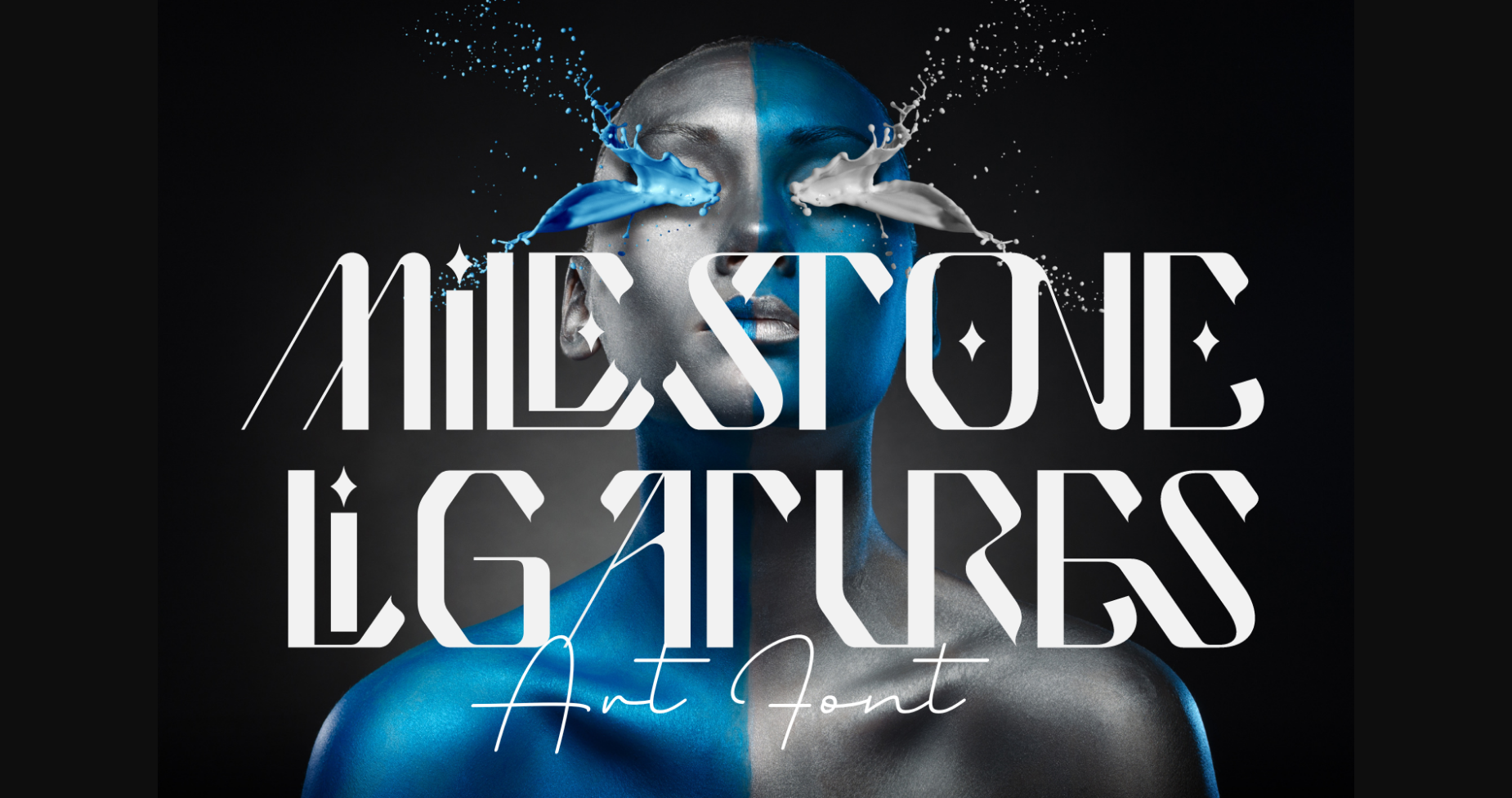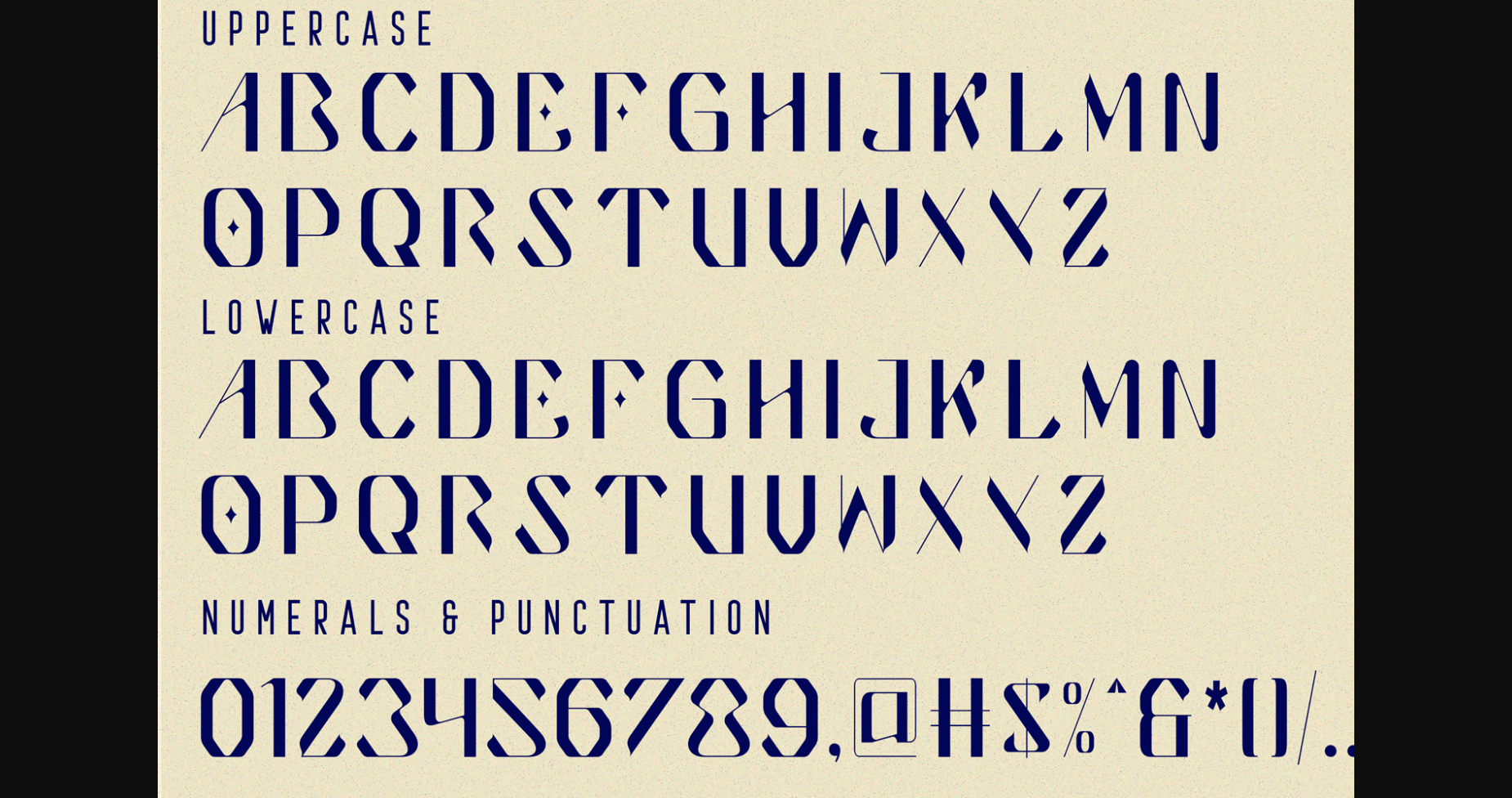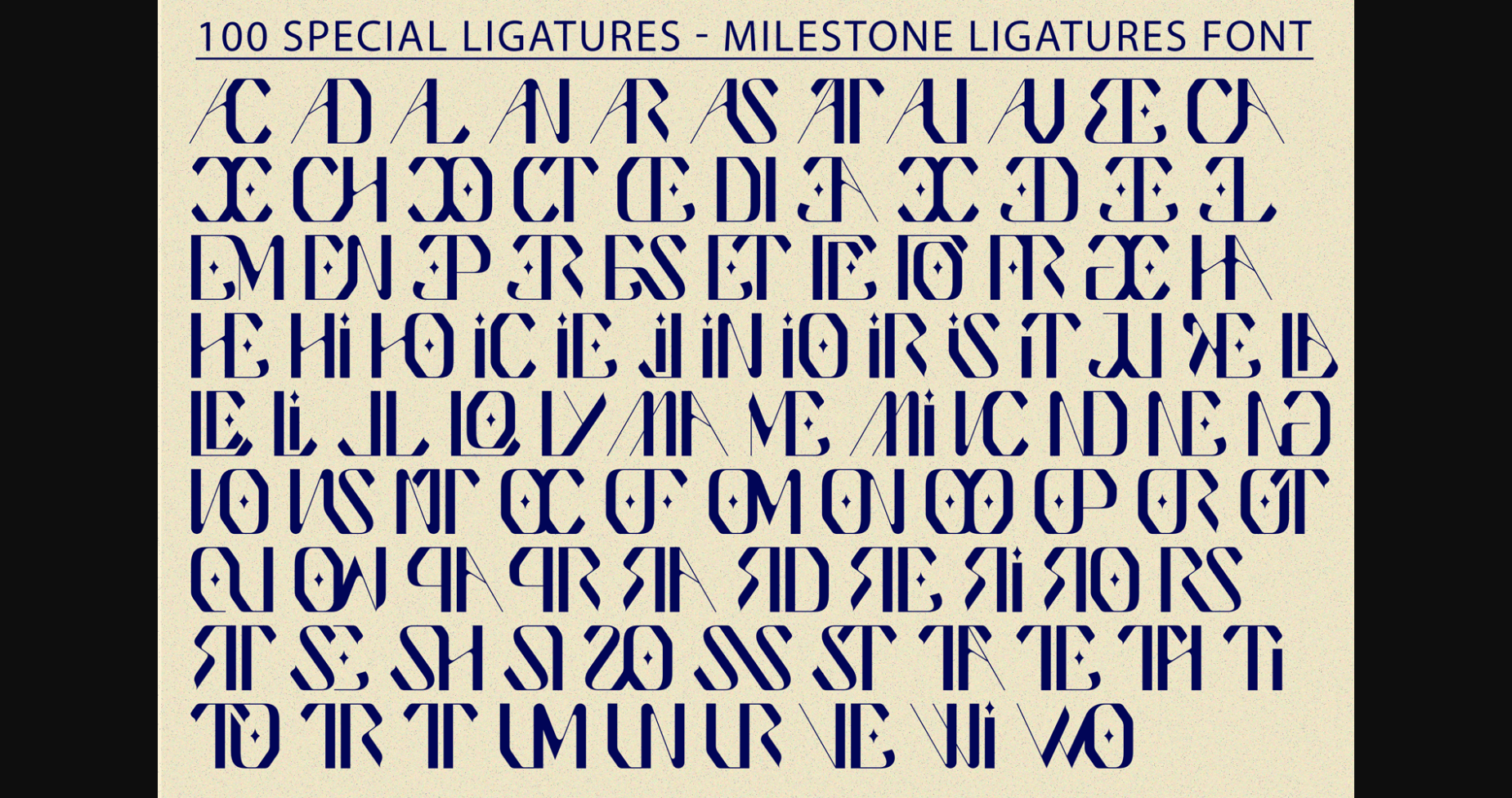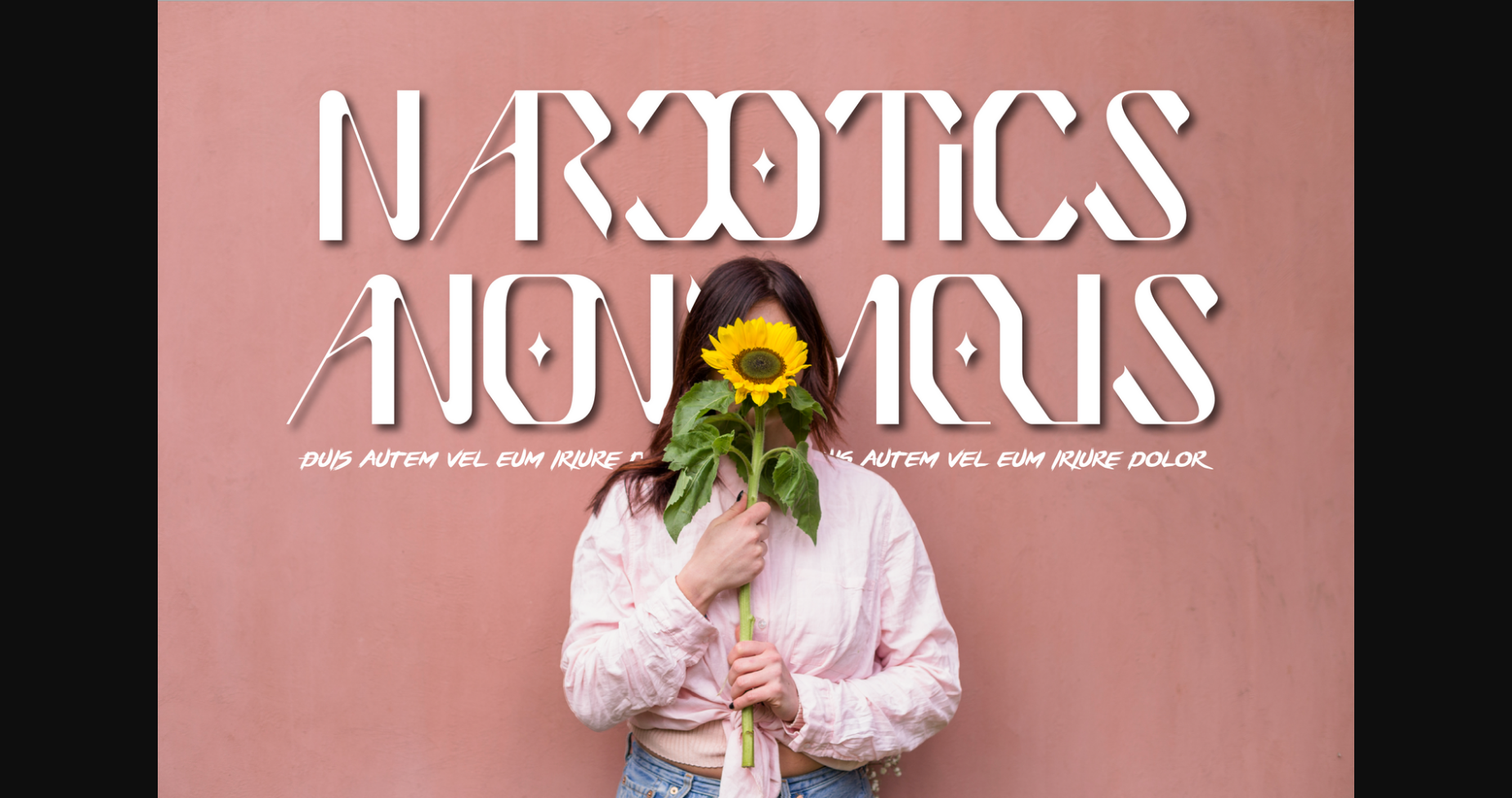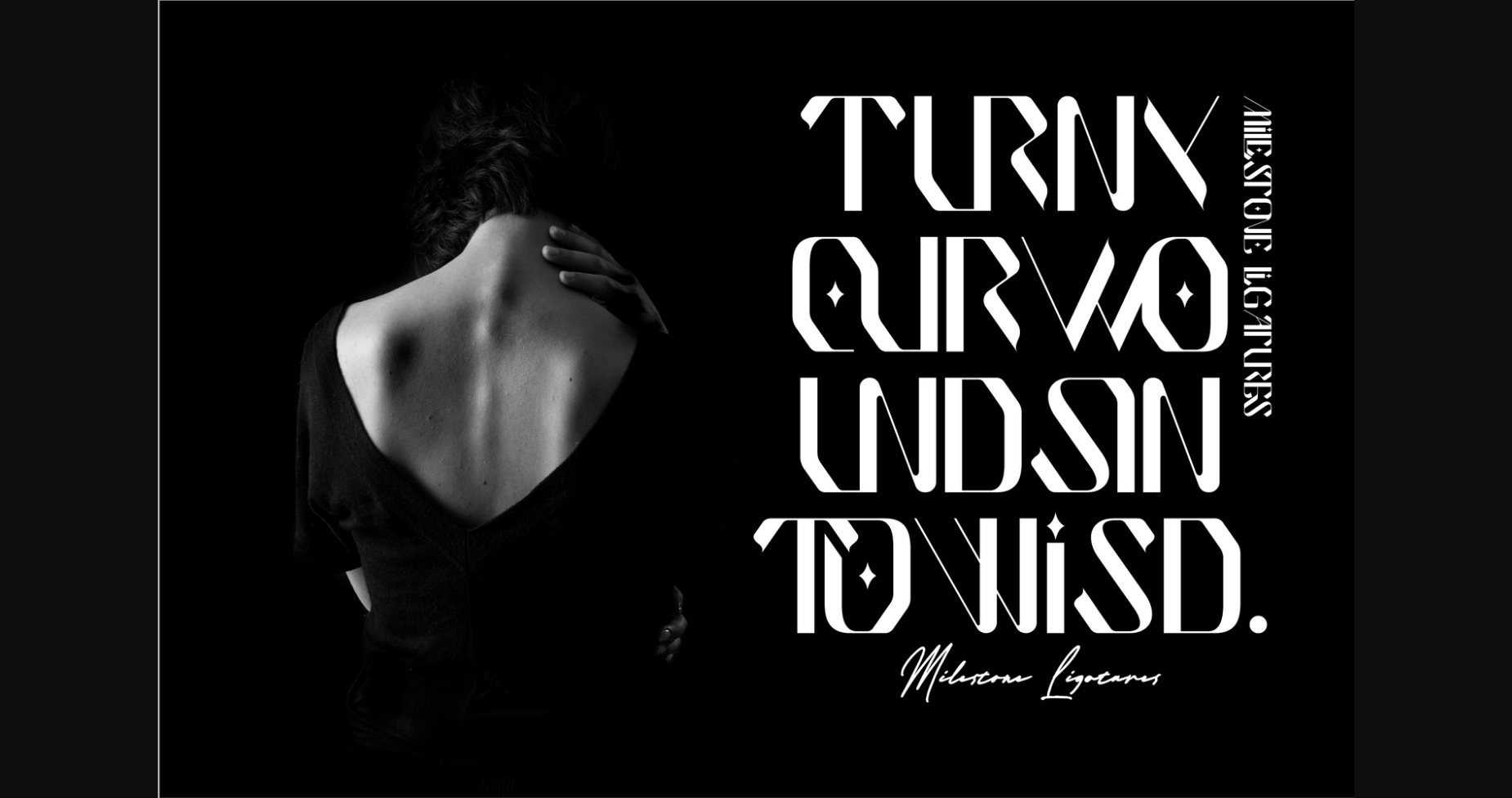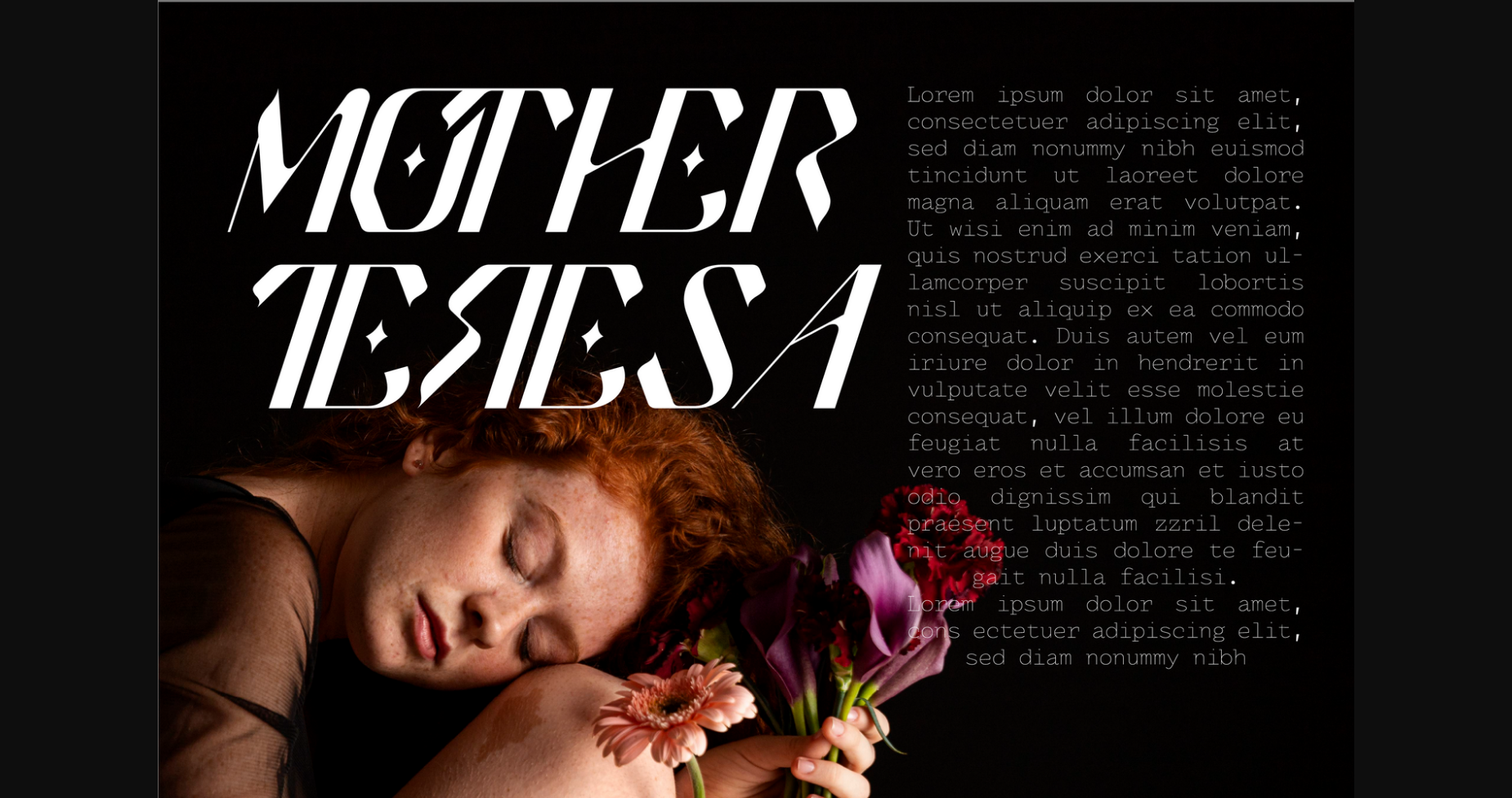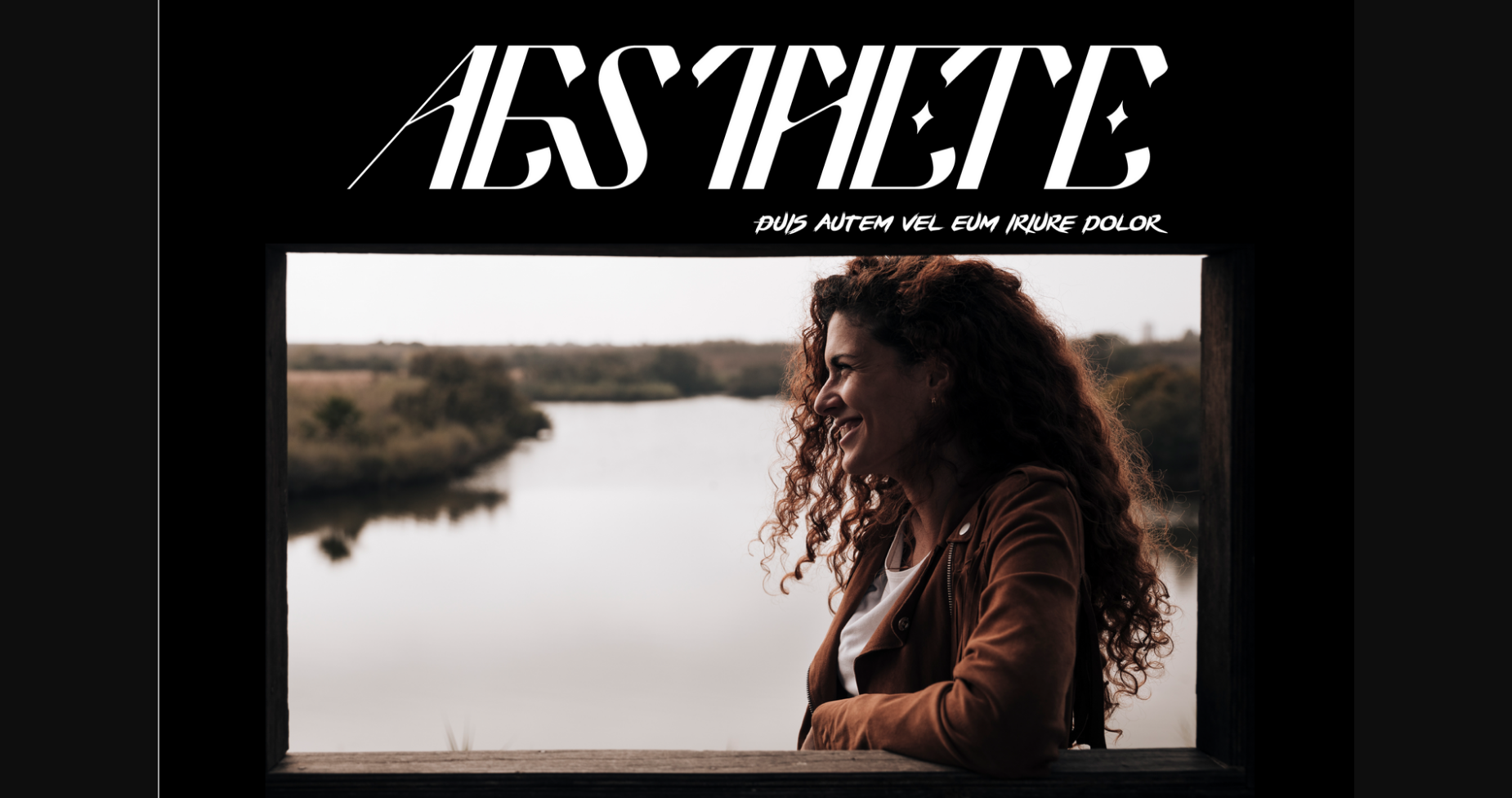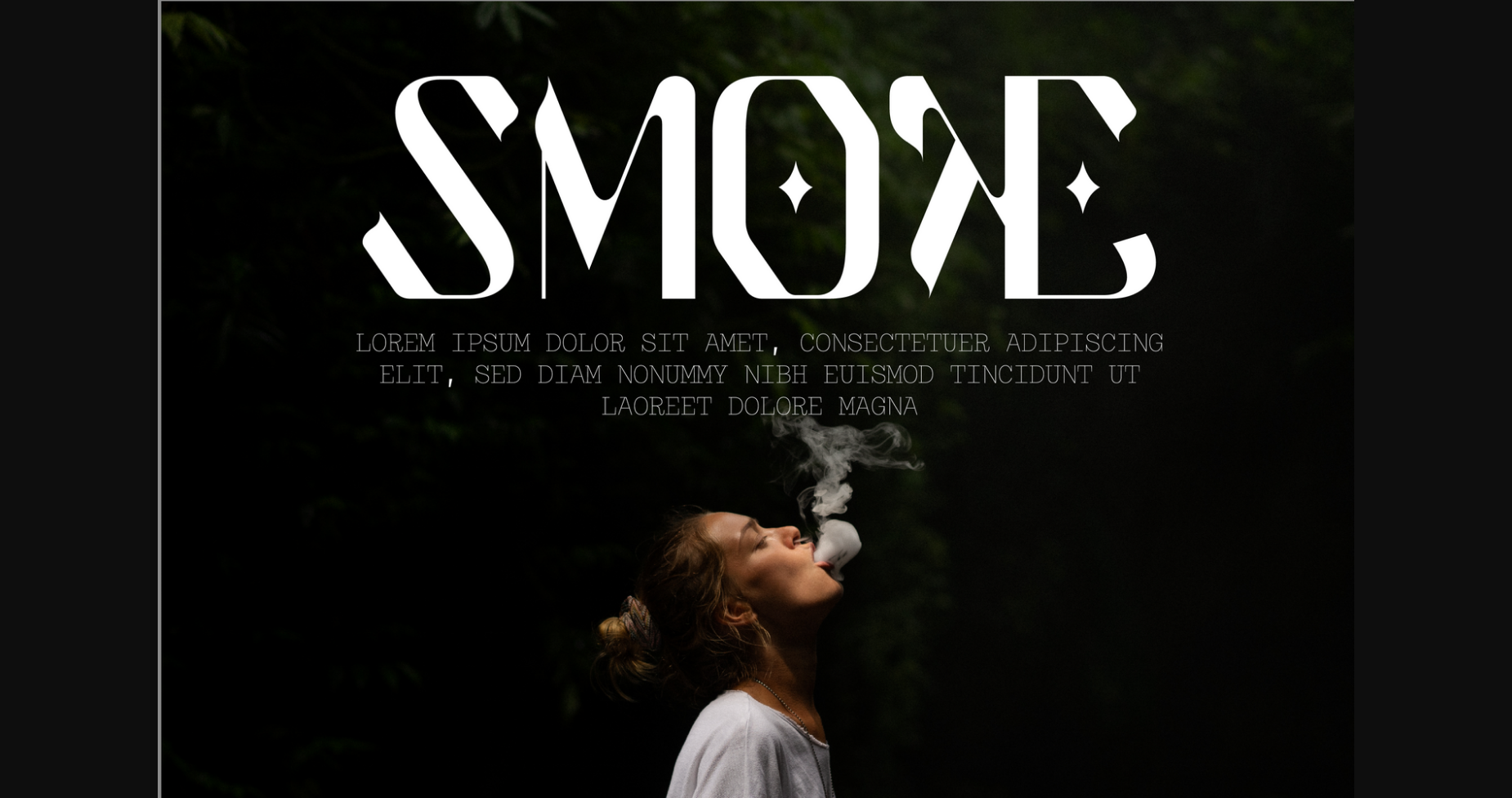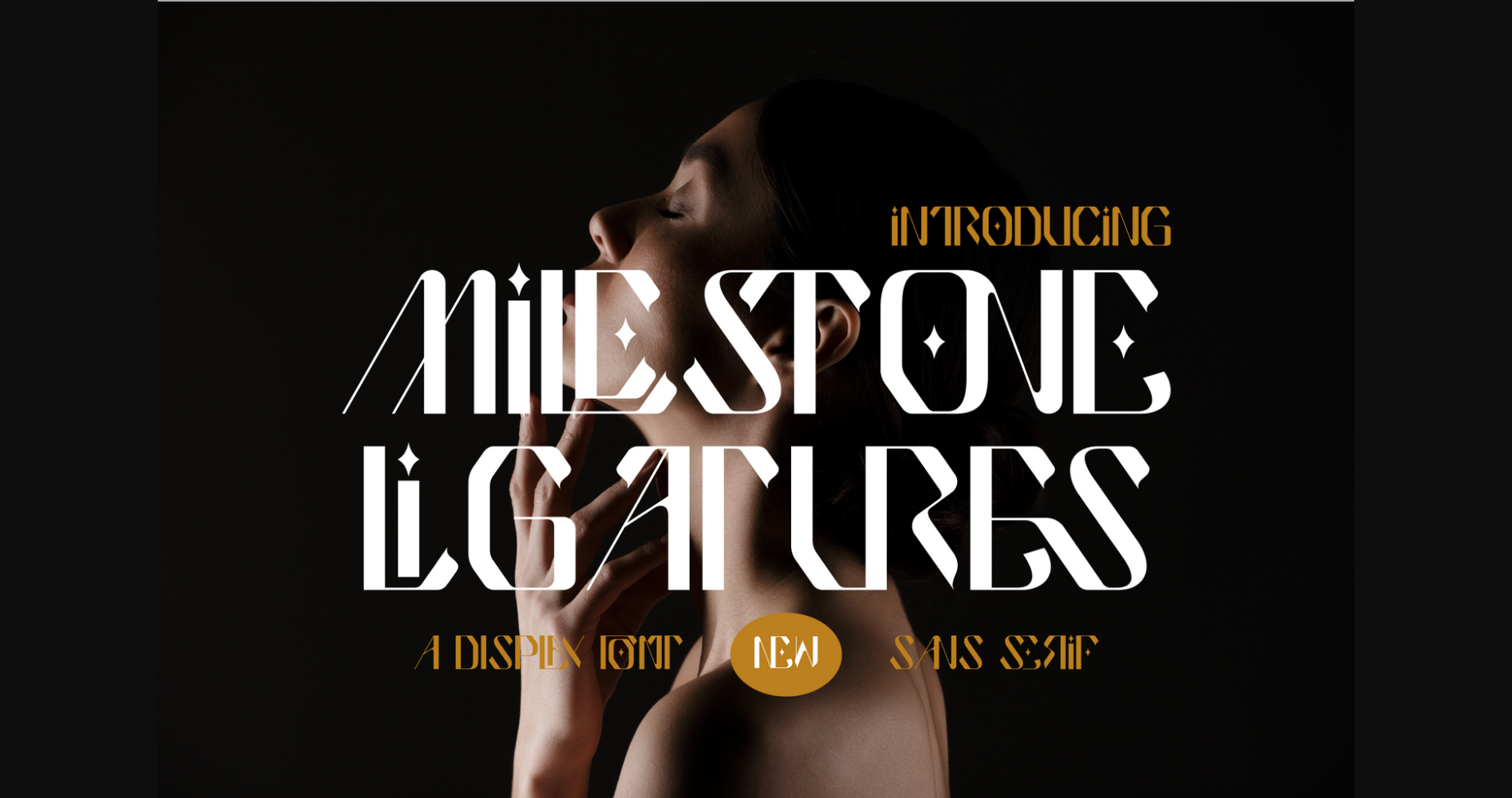
Milestone Ligatures Font
About Milestone Ligatures Font
Milestone Ligatures Font – Trendy, elegant, modern & condensed style sans serif font for your new modern projects. Luxury, artistic, fancy, and fashion styles on this font will be great for any branding project. This is a perfect choice for creating logotypes, branding, headlines, corporate identities, and marketing materials for web, digital & print alike.